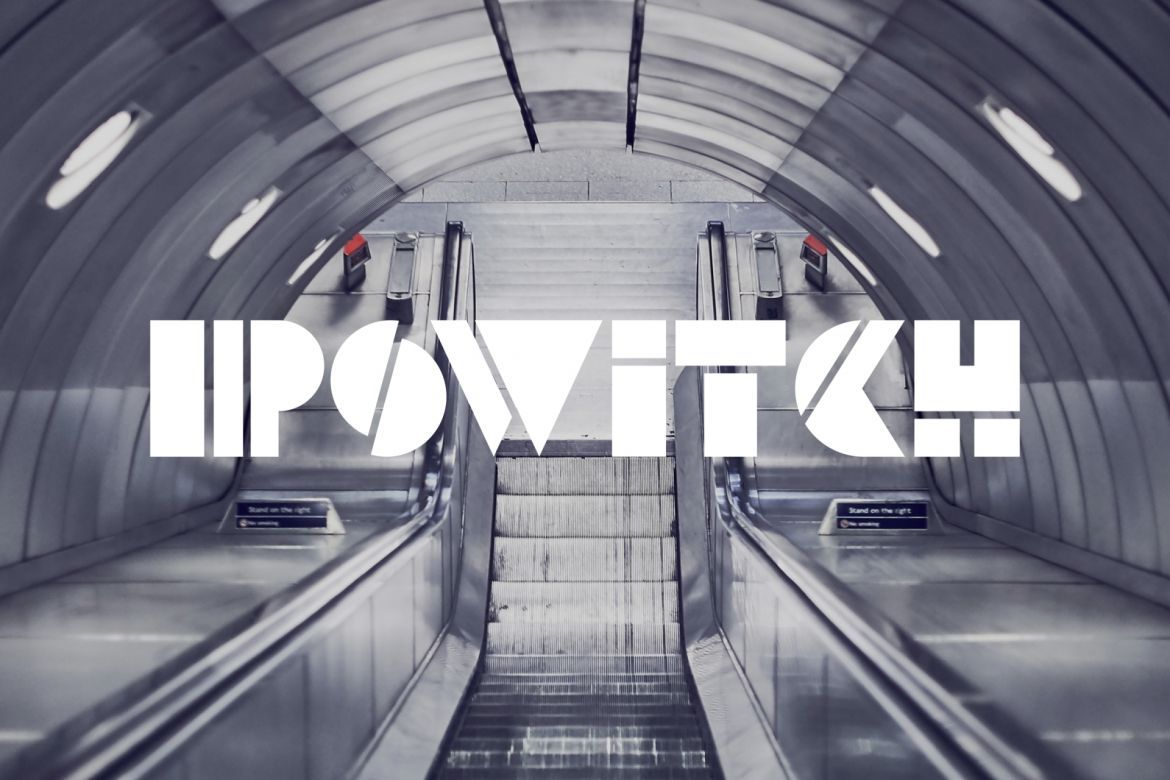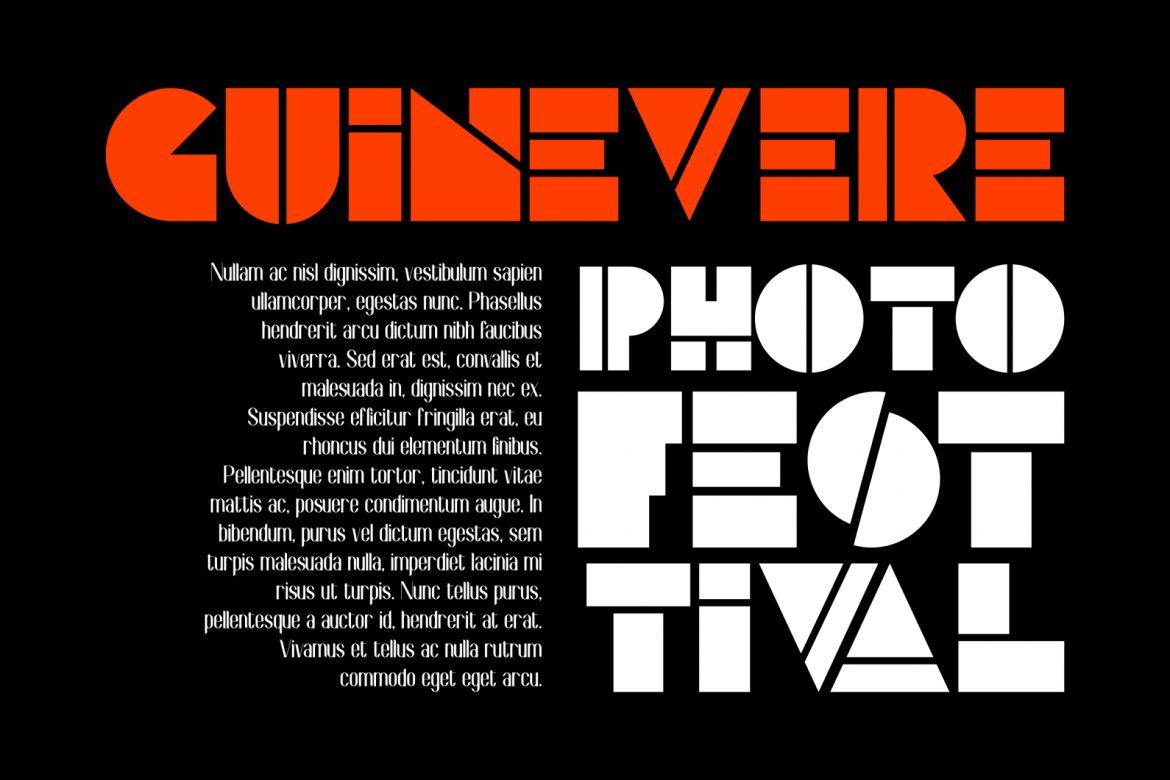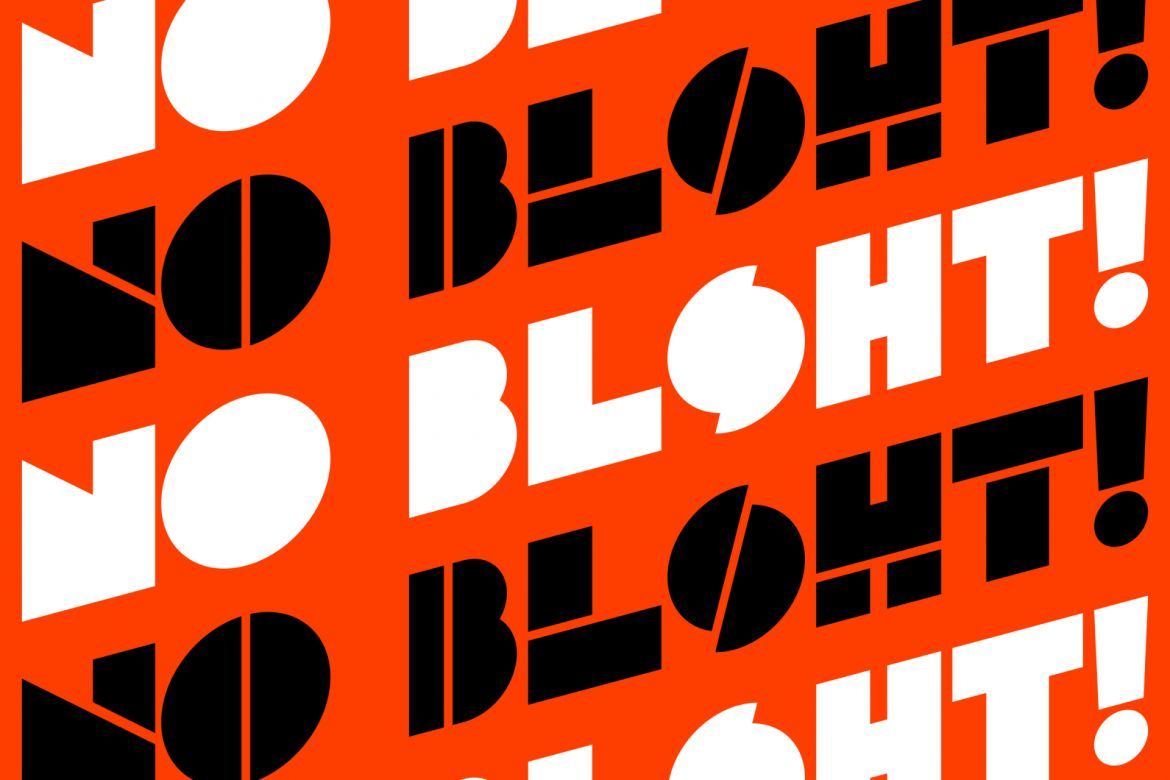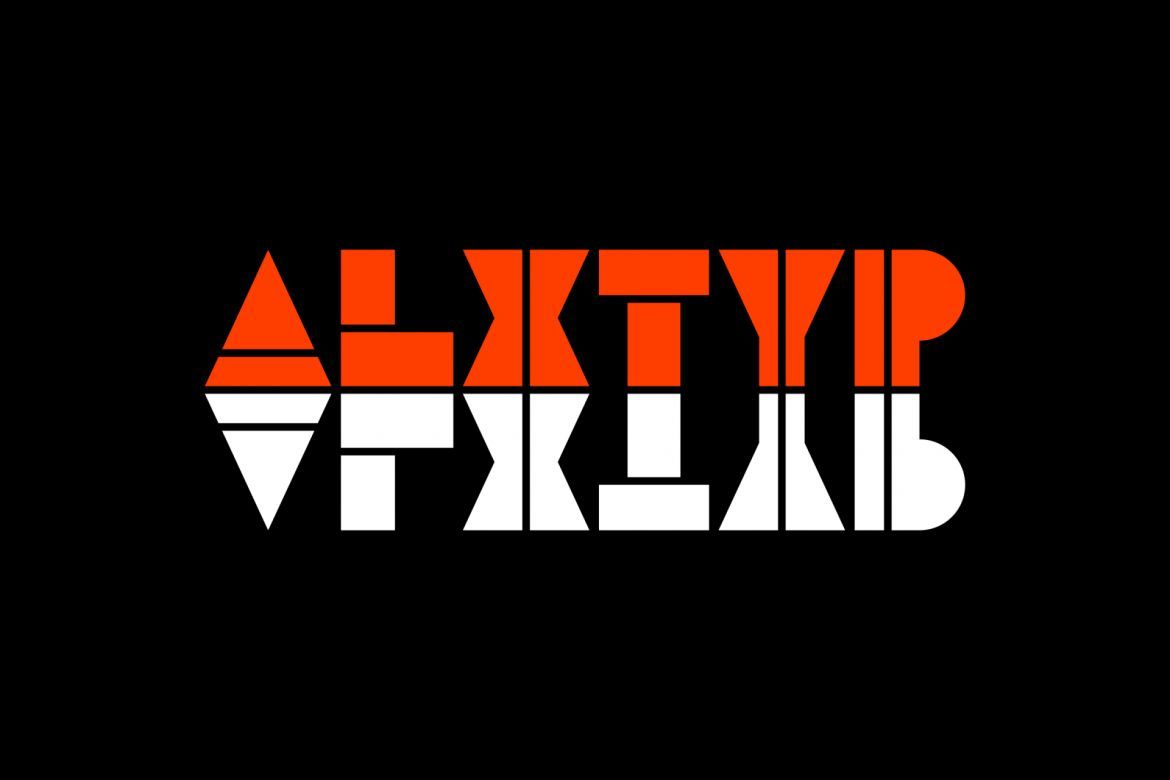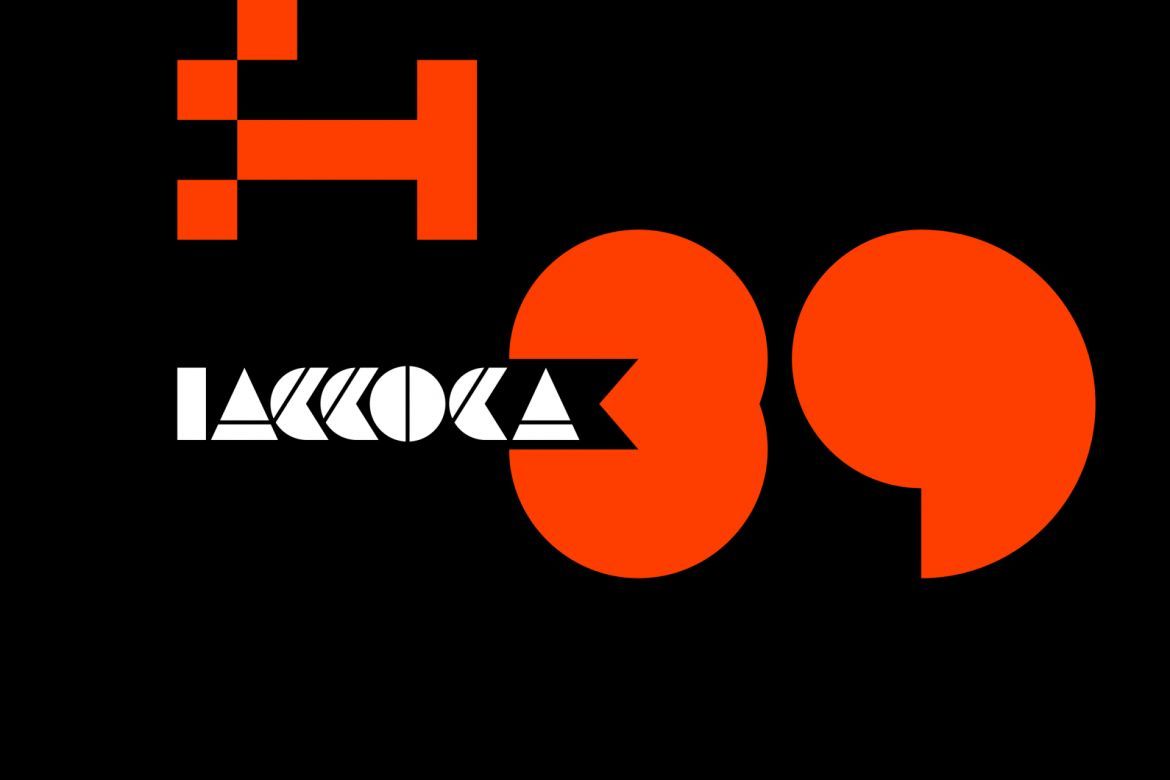
BLOKEE Display Font
Modern blockletter font. With loud and in your face attitude, comes in full block in uppercase, and striped cut in lowercase. The simple but strong shape, gives your poster a powerful touch. Be bold. Be BLOKEE.